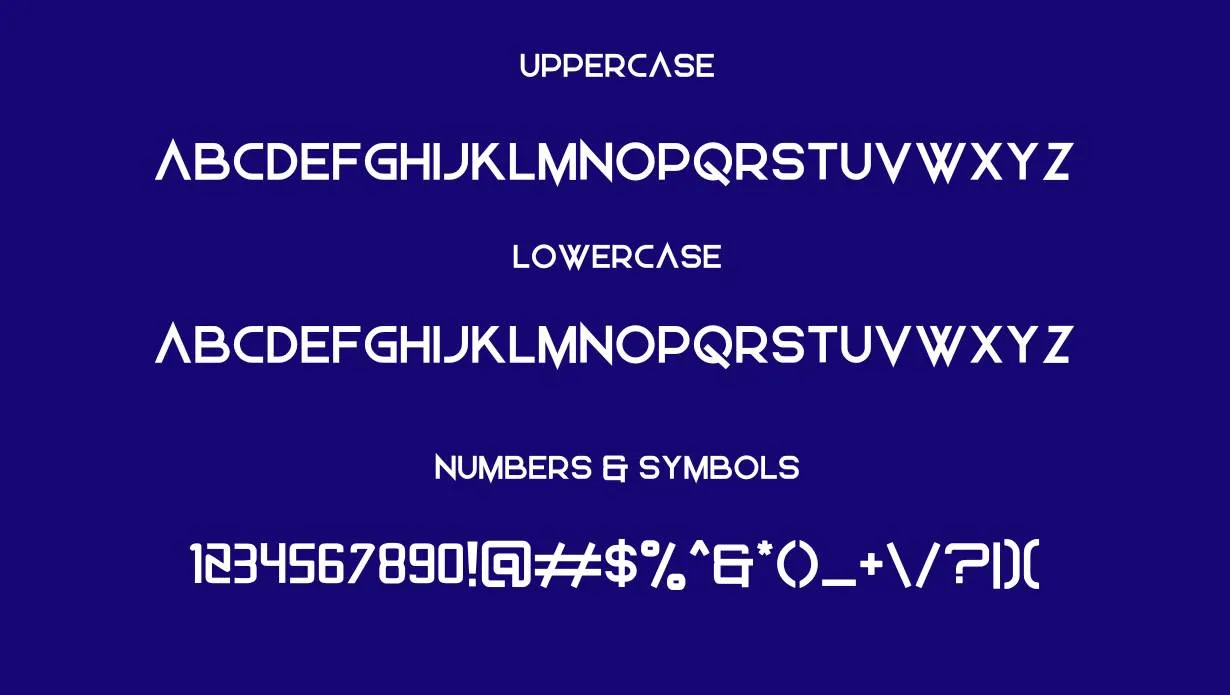
The Netech font is a futuristic and tech-inspired typeface that captures the essence of innovation. Its sleek lines and geometric shapes give a nod to the digital age, making it perfect for technology-related projects.
Whether you’re designing a software interface, a tech blog, or anything that involves the digital realm, the Netech font infuses a sense of modernity and efficiency into your text.
Let your words reflect the forward-thinking nature of technology with the sleek precision of the Netech font.
| Name | Netech Font |
| Designer | Max Miedinger |